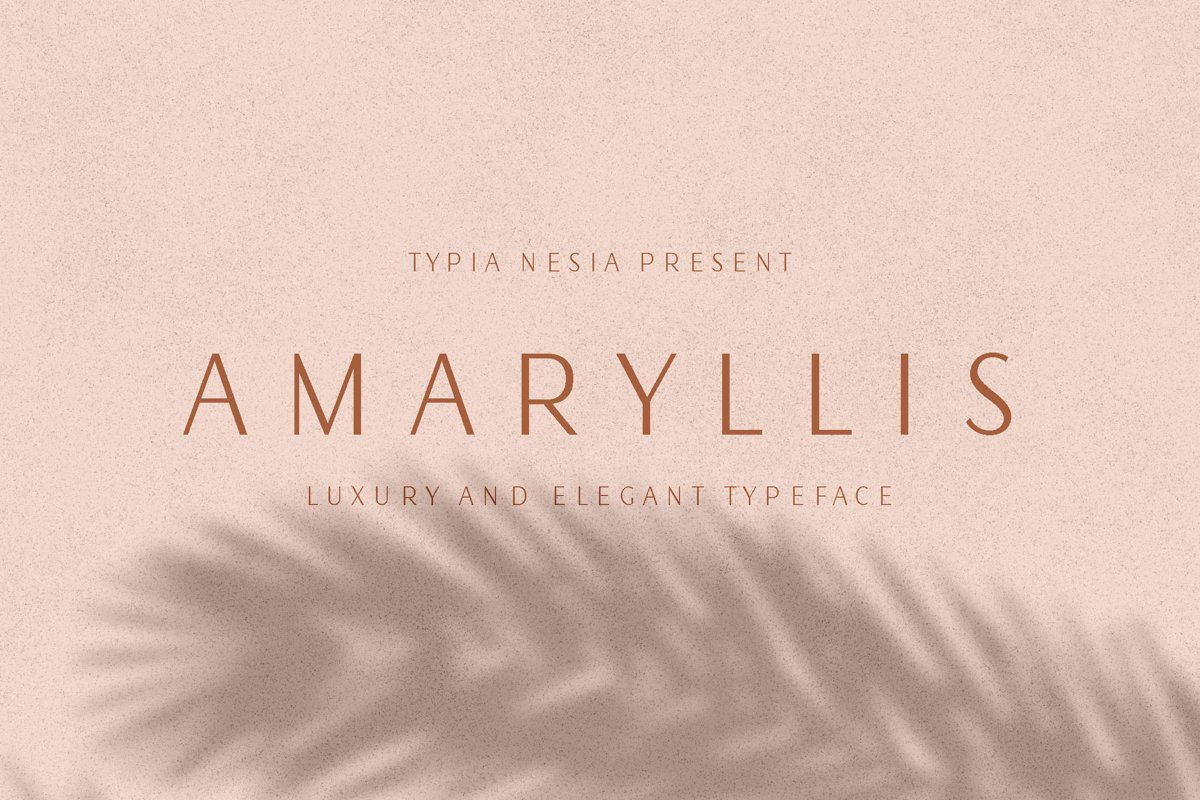
Hello, looking for a new elegant sans font with classy and modern feels ?
Amaryllis Sans font is perfect for your up coming projects. Such as logo branding, editorial design, stationery design, blog design, modern advertising design, card invitation, art quote, home decor, book/cover title, special events ( wedding, birthday, etc ), and any more.